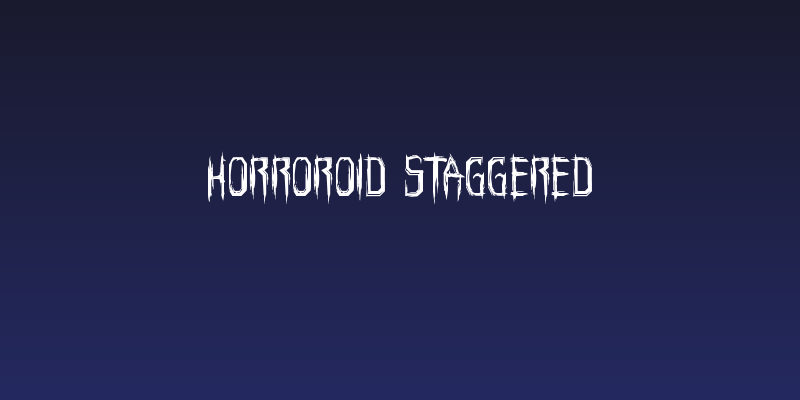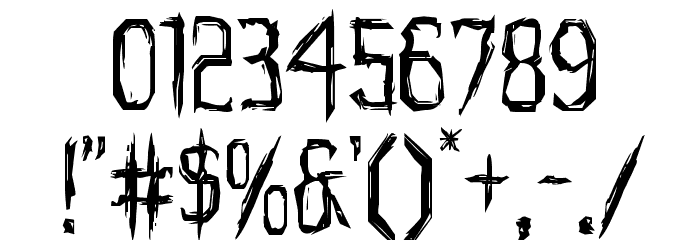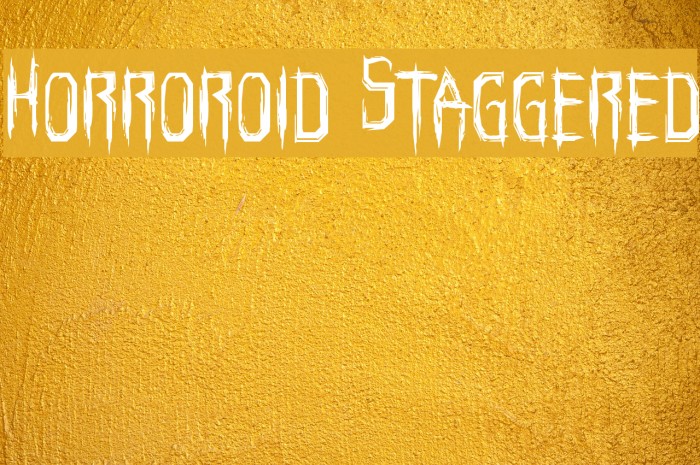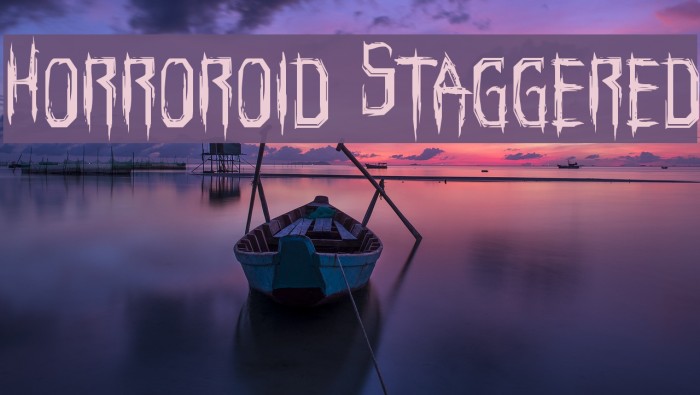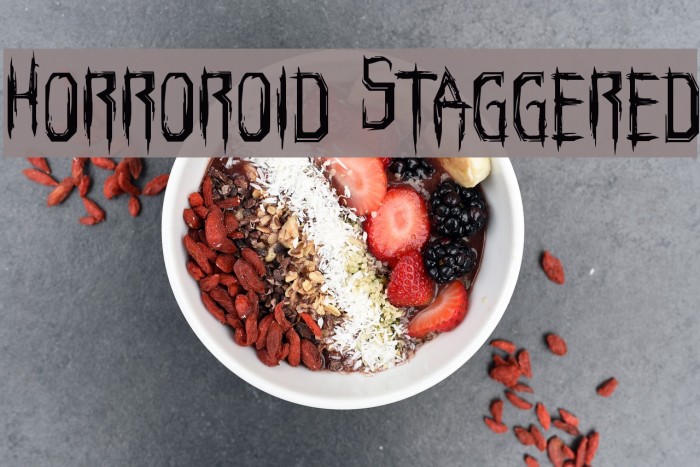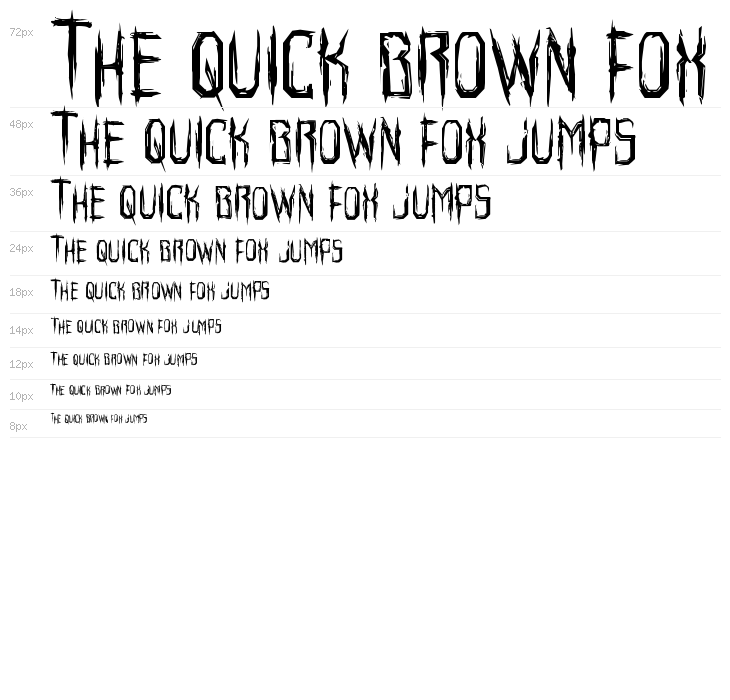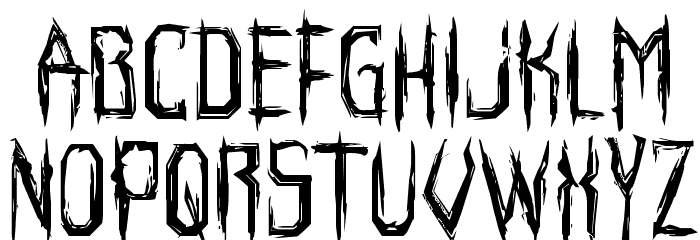
Horroroid Staggered Font
Horroroid Staggered Description
This font features a jagged, distressed appearance, reminiscent of horror or thriller themes. The characters are sharp and angular, with irregular edges that give a sense of chaos and unease. The uppercase and lowercase letters maintain a consistent style, with exaggerated points and a slightly staggered alignment that enhances the unsettling aesthetic. Numbers and special characters follow the same design principles, ensuring a cohesive look across all glyphs. This font is ideal for projects that require a dramatic and eerie impact, such as horror movie posters, Halloween event promotions, or any design that seeks to evoke a sense of fear and suspense.
| Proposed Projects | Ideal for horror movie posters, Halloween events, and suspenseful design themes. |